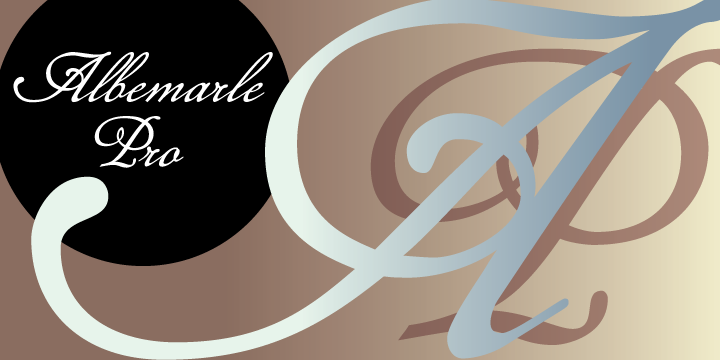
P22 Albemarle is a smooth reworking of the popular rough textured Roanoke font.
The texture change gives this style a much more elegant effect, yet retains its skilled capturing of historical handwriting.
Albemarle Pro features at least one alternate for all Caps and many lower case characters. The Pro font also features a full CE character set and more with over 600 glyphs.